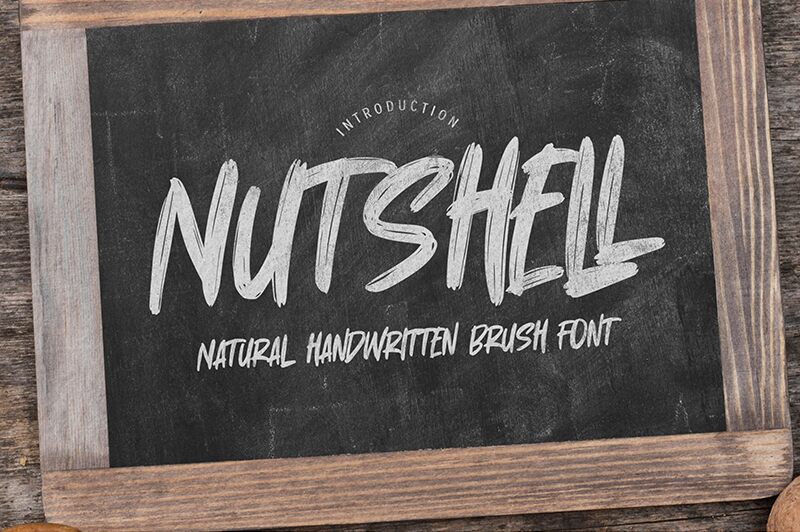
Nutshell
Discover 'Nutshell' by Gassstype, a font that captures the spontaneous spirit of handwritten artistry with its authentic brush style. This semi-light, semi-condensed typeface is an epitome of natural elegance and fluidity, perfect for injecting a personal touch into your creative endeavors. Each stroke in Nutshell tells a story of craftsmanship, traced from original Procreate sketches into crisp vector format to ensure every character conveys warmth and character.
Ideal for branding, packaging, or expressive editorial work, Nutshell's versatile charm adapts seamlessly from intimate invitations to bold advertisements. Embrace the font that blends casual quickness with meticulous design—Nutshell is set to elevate your project with its undeniable individuality and aesthetic appeal.